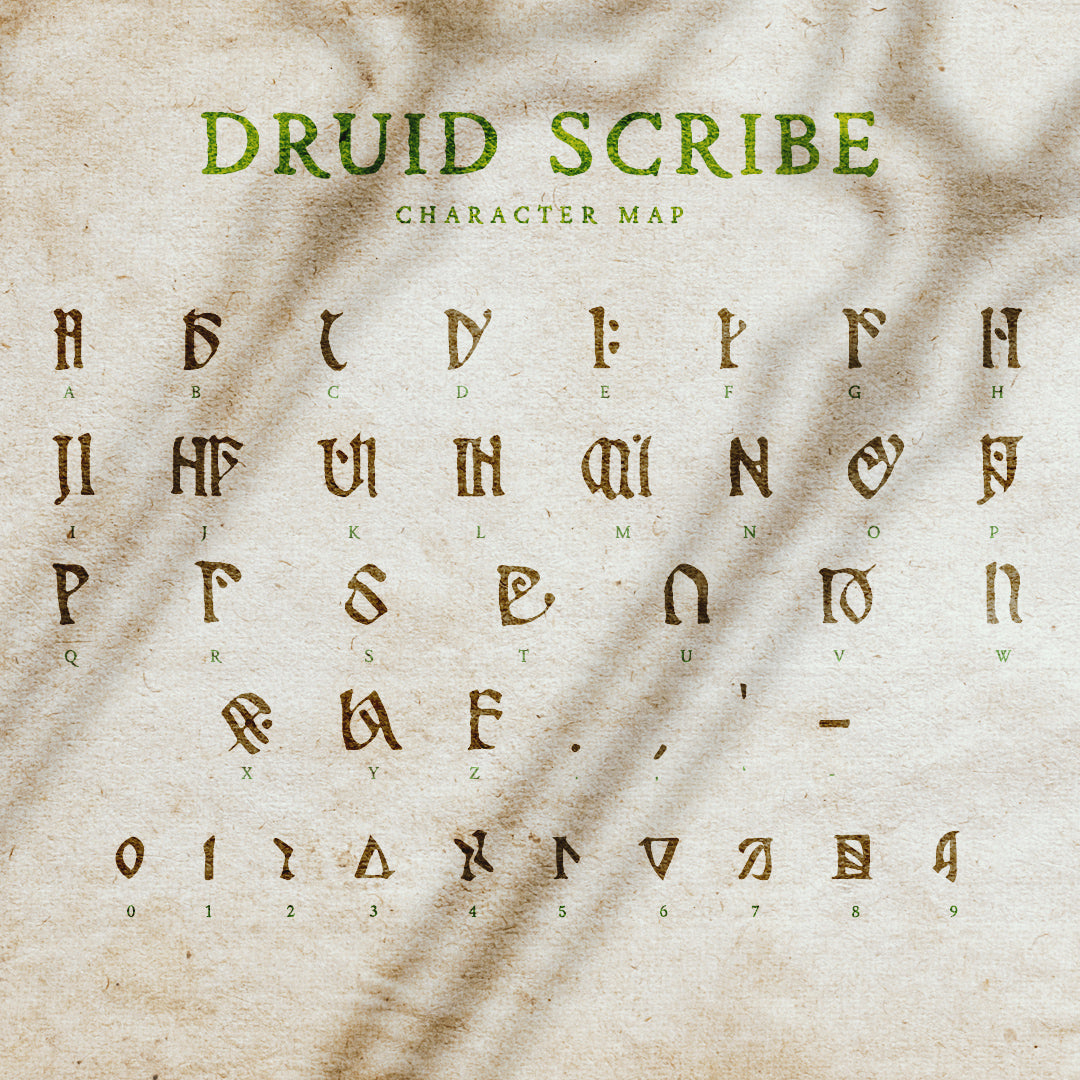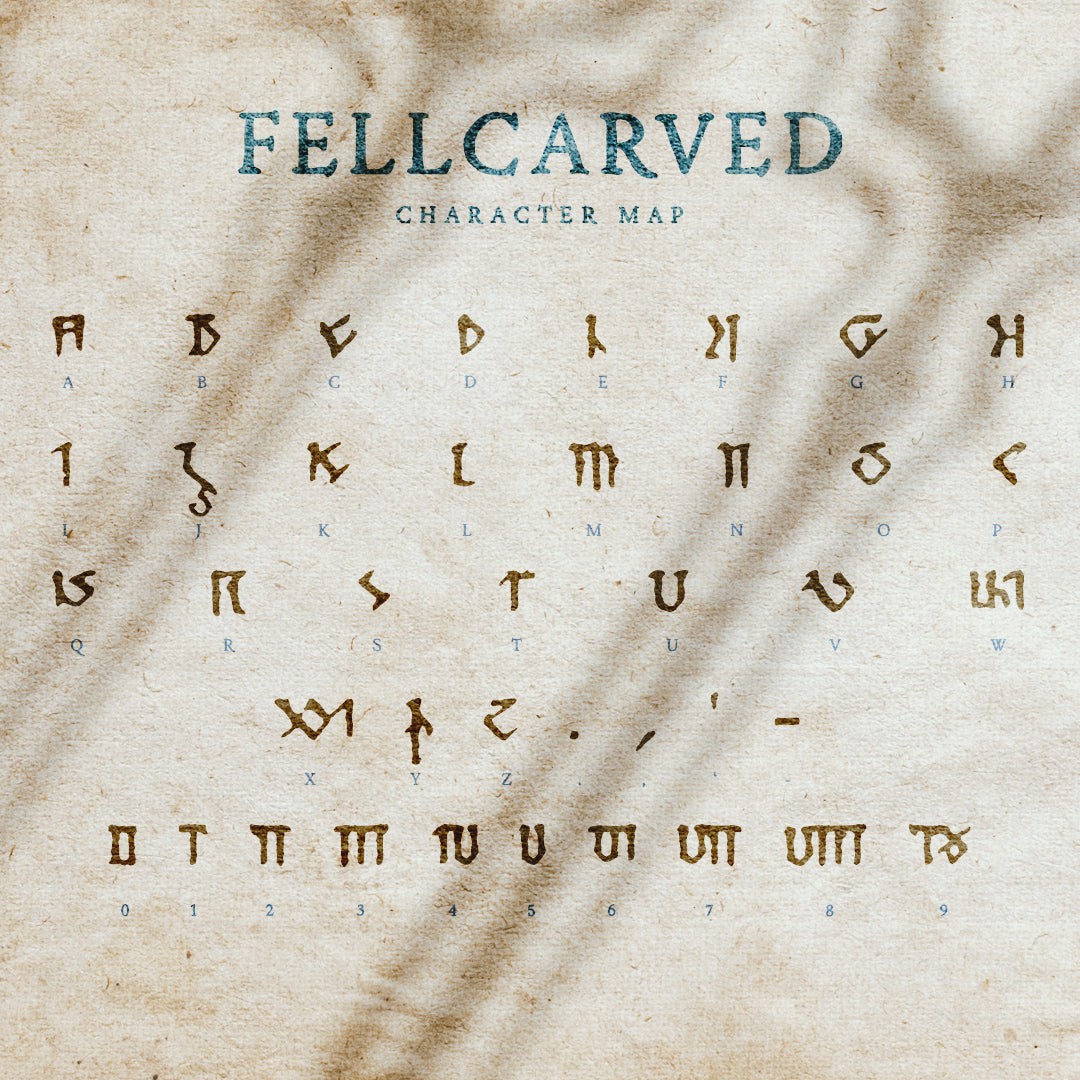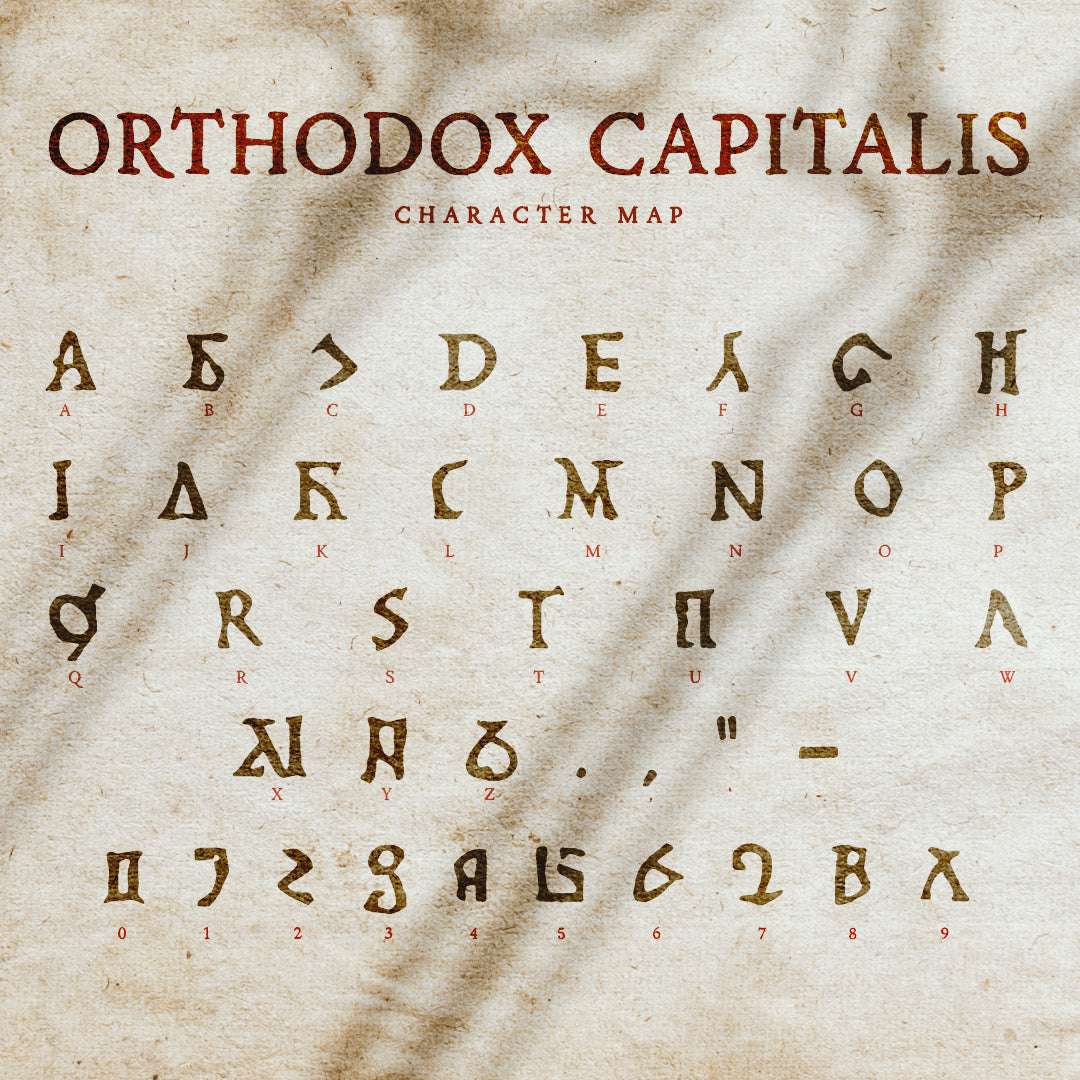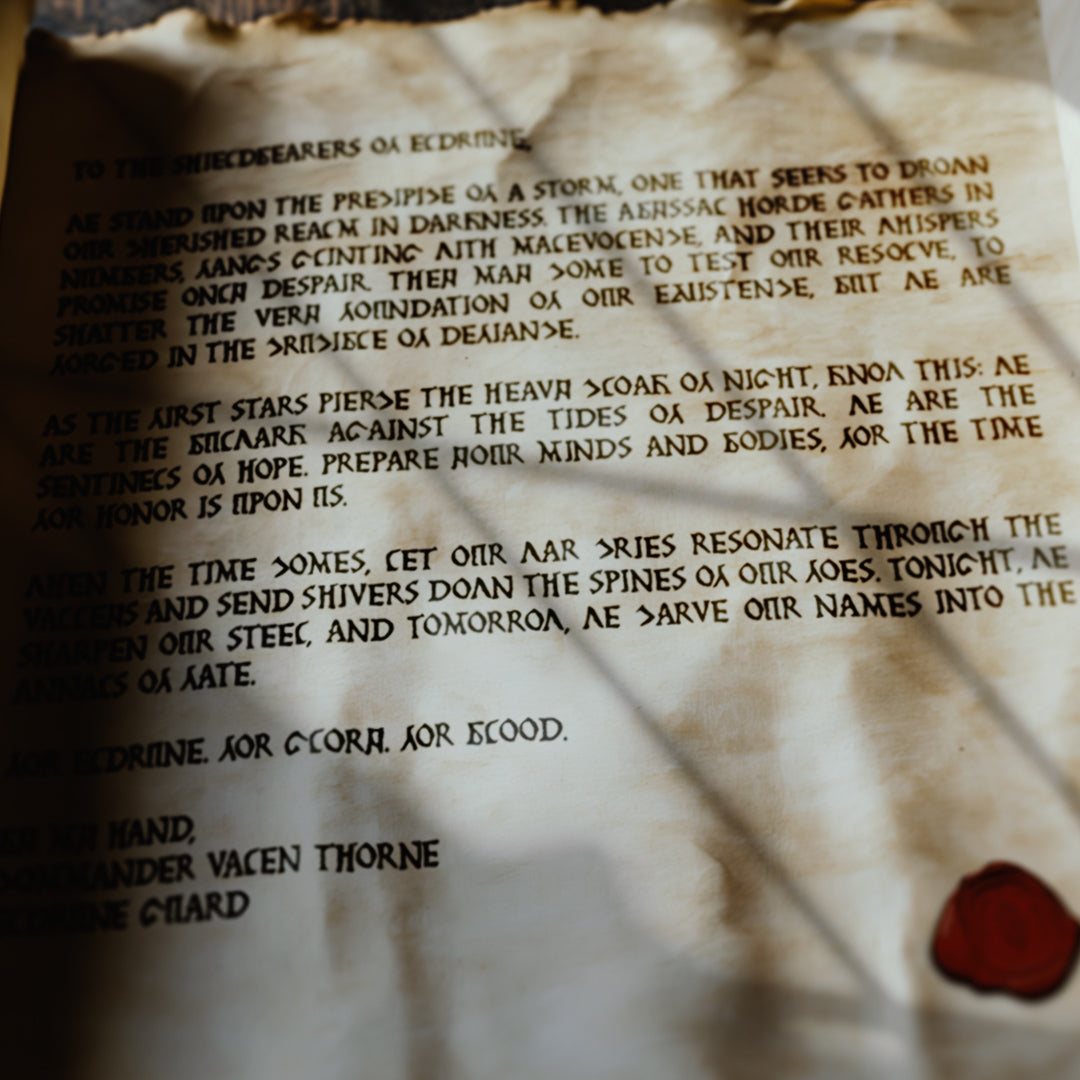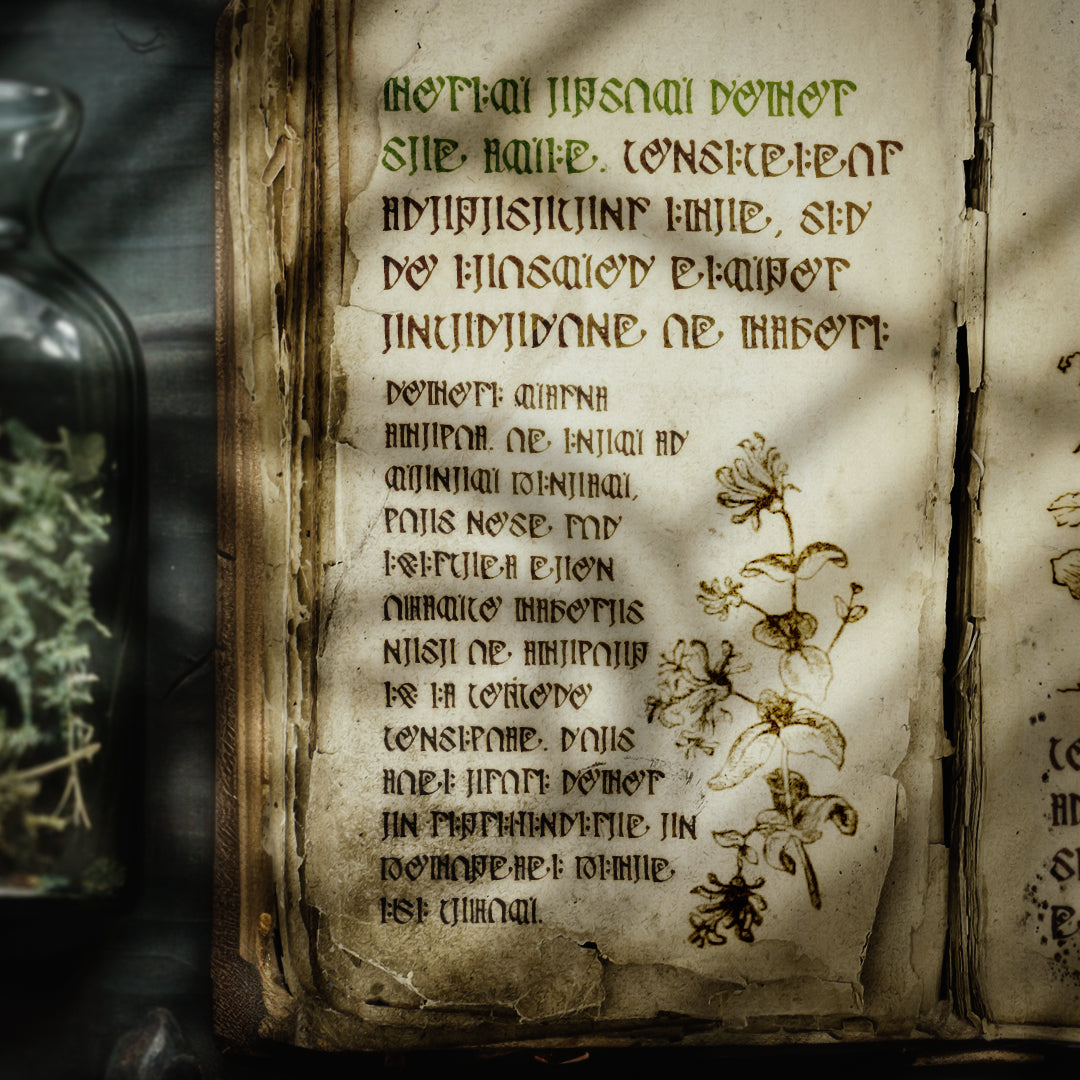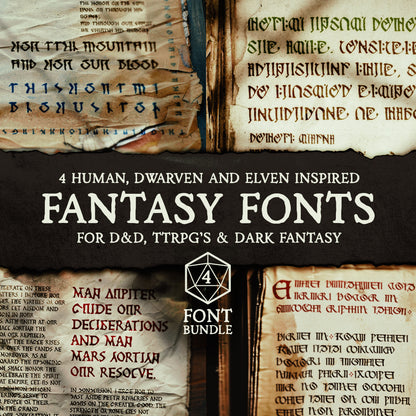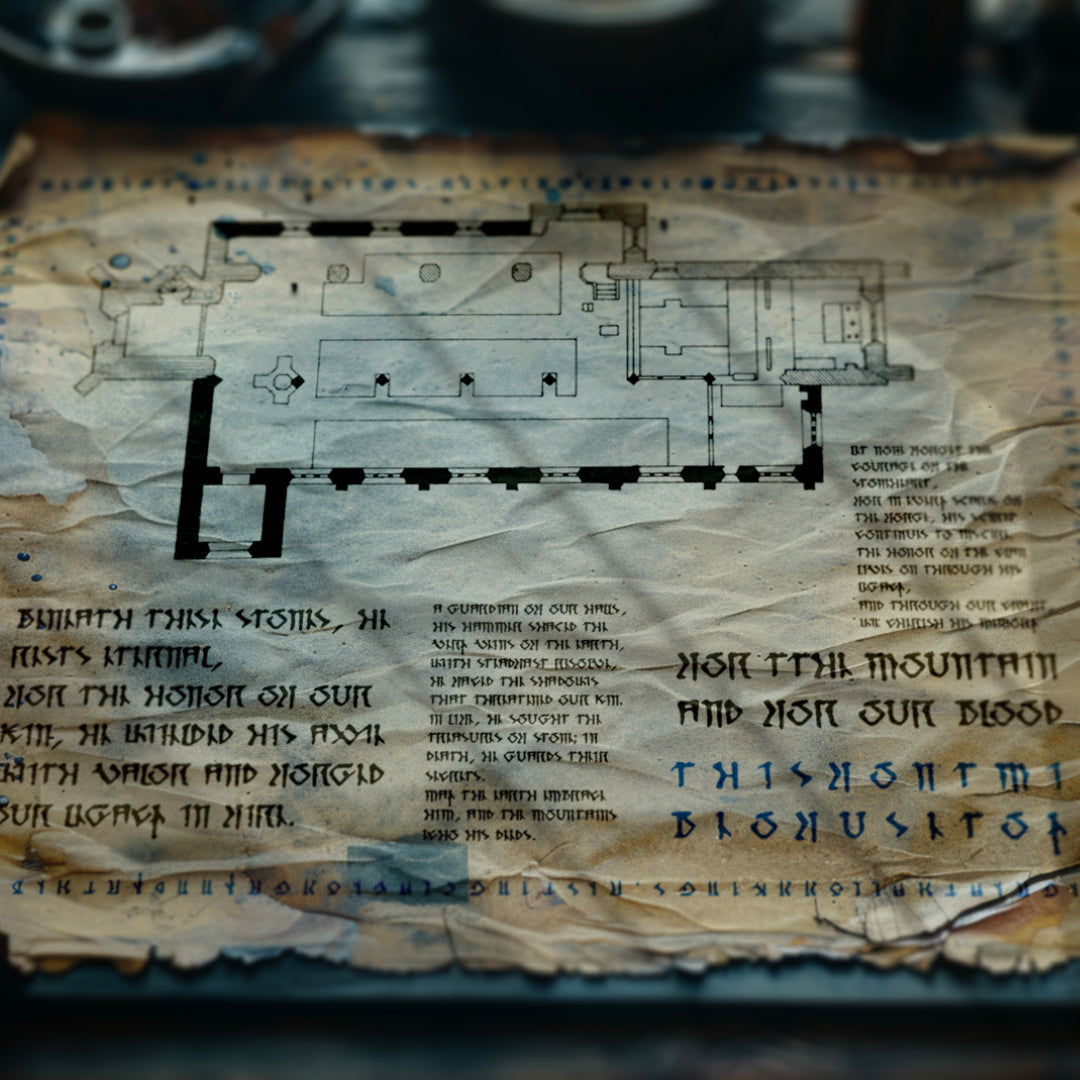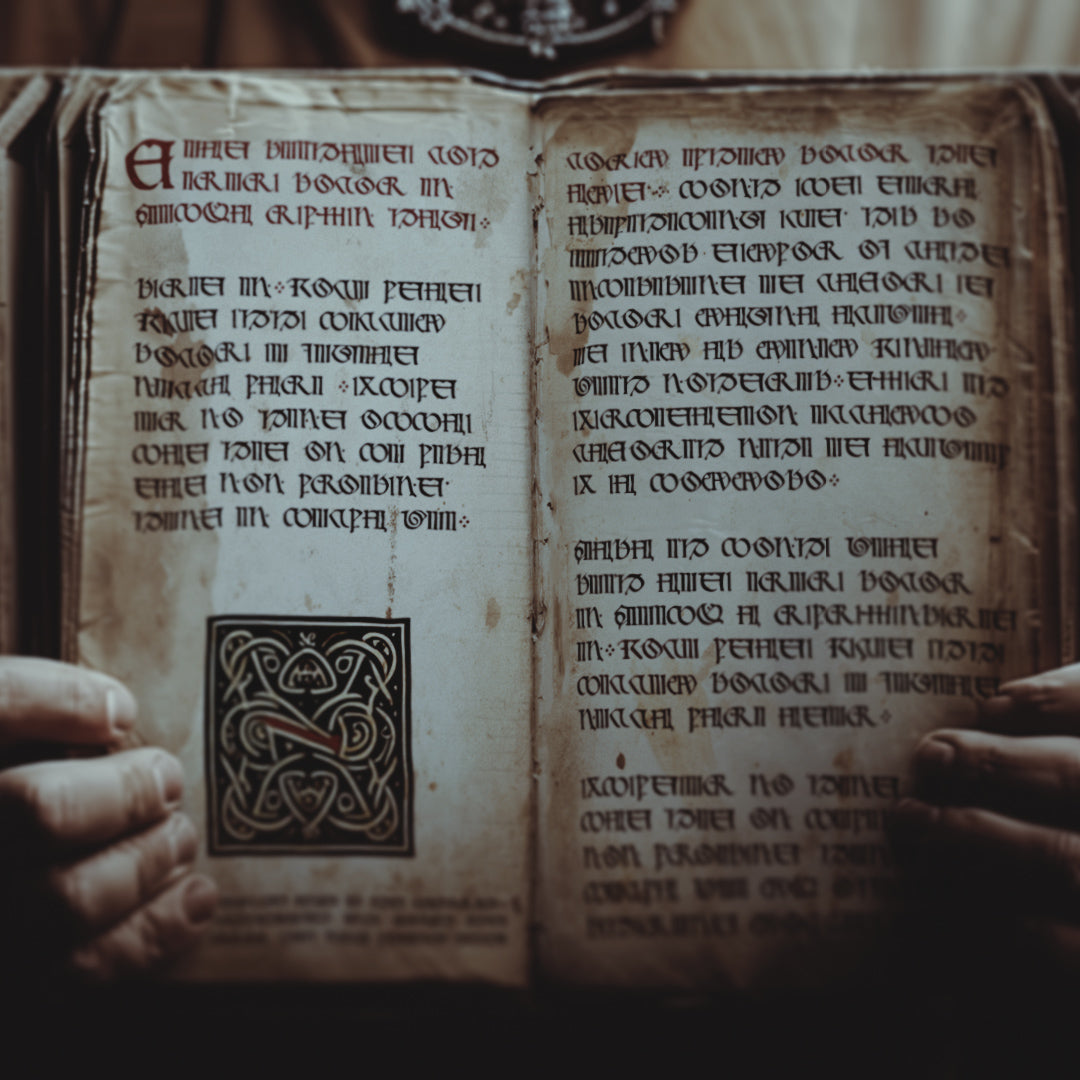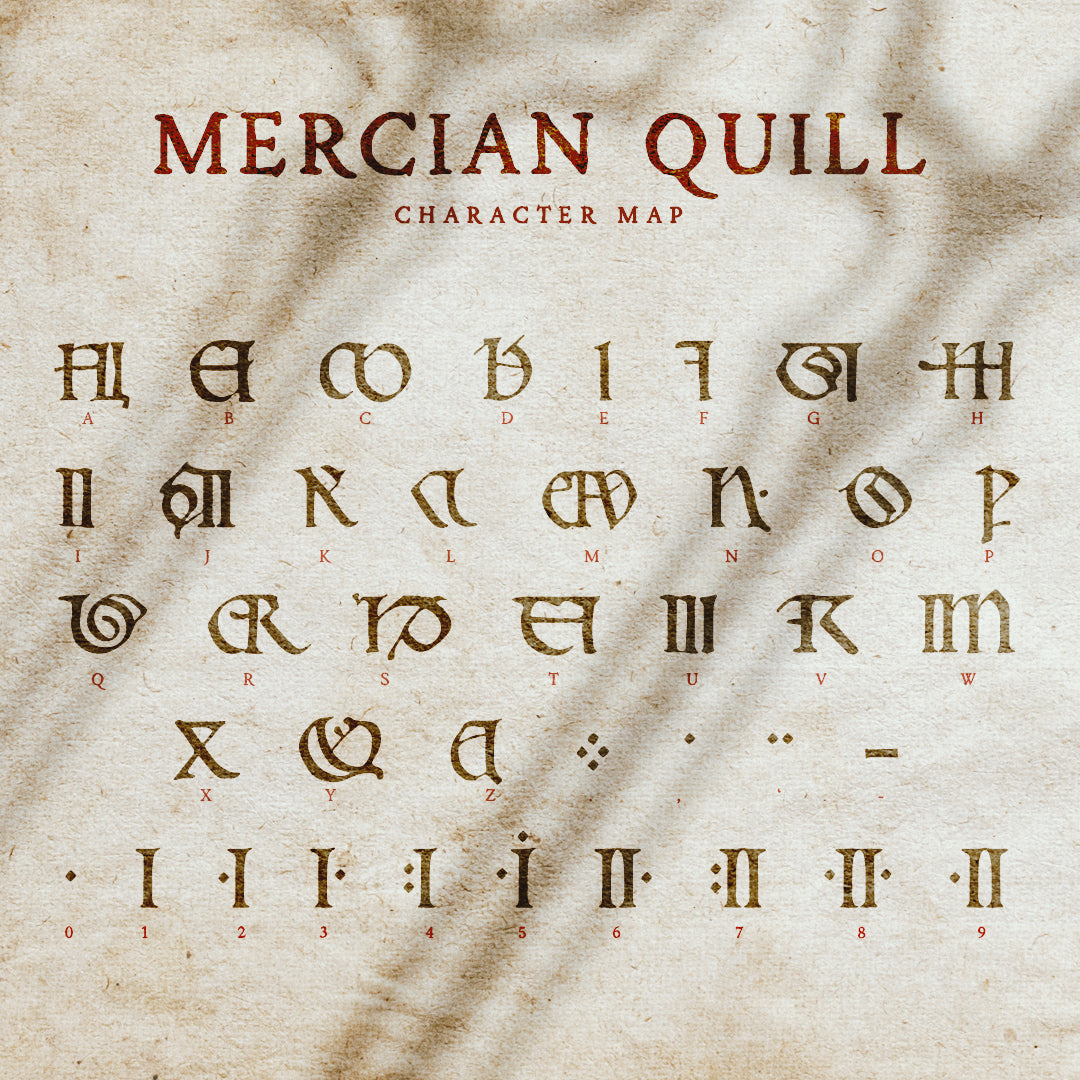
Fantasy Font Bundle
Bring your campaigns, stories, and maps to life with this 4-Font Fantasy and Medieval Bundle. Curated specifically for Dungeon Masters, fantasy authors, and digital artists, this collection serves as a small library of distinct scripts shaped by the cultures, histories, and mythic traditions of classic fantasy worlds. Each typeface carries its own unique personality: from stone-cut dwarven authority and elven elegance, to ancient druidic markings and human calligraphy.
Every font captures the magic and age of familiar tabletop RPG tropes, including dwarven warriors, elven tribes, powerful sorcerers, and the forgotten journals of druids, paladins, and clerics. Whether you are typesetting a homebrew sourcebook, crafting physical props and handouts, creating annotated fantasy world maps, or publishing an indie novel, these scripts help bring narrative depth and authenticity to your creations.
Each font includes 26 basic English letters. Select typefaces, specifically Mercian Quill and Druid Scribe, also feature built-in alternate characters and stylistic ligatures; this offers total flexibility for worldbuilders who want their props to feel truly handcrafted, immersive, and deeply rooted in lore.
What's Inside the Bundle?
- Druid Scribe (OTF and TTF): A mystical, organic script inspired by nature, ancient runes, and forest-dwelling mystics. It is perfect for secret druidic markings, magical spell scrolls, and woodland lore.
- Fellcarved (OTF and TTF): A brutalist, angular display font with heavy stone-cut authority. It is ideal for dwarven ruins, underground fortresses, Norse-inspired typography, and carved stone inscriptions.
- Orthodox Capitalis (OTF and TTF): A regal, high-fantasy display font inspired by medieval and latin manuscripts. It is excellent for royal decrees, holy texts, paladin oaths, and epic book titles.
- Mercian Quill (OTF and TTF): A flowing, elegant human script font that captures the art of traditional penmanship. It includes alternate characters and ligatures, making it your go-to choice for NPC letters, quest handouts, and explorer journal entries.